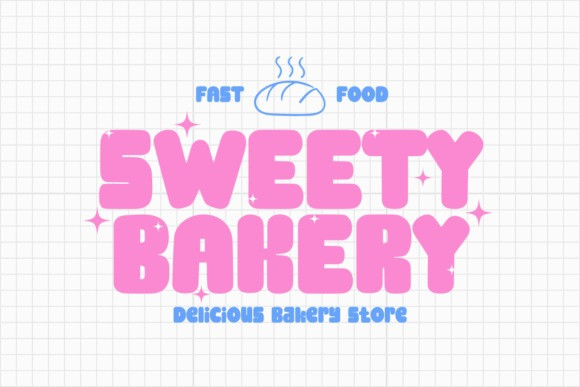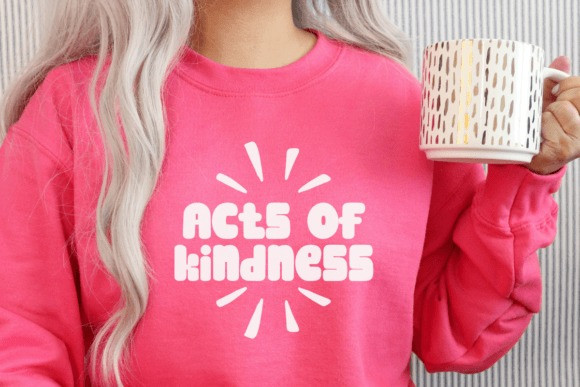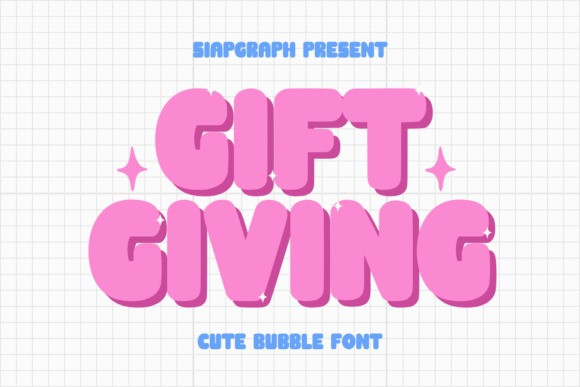
Gift Giving Font
Gift Giving Font is an adorable bubble font bursting with playful charm and vibrant energy. Its rounded, puffy letterforms and cheerful design make it perfect for kids’ projects, birthday cards, toy packaging, social media graphics, and holiday themes. With its fun and lighthearted style, Gift Giving is guaranteed to bring a smile to your audience and add a pop of joy to your designs.